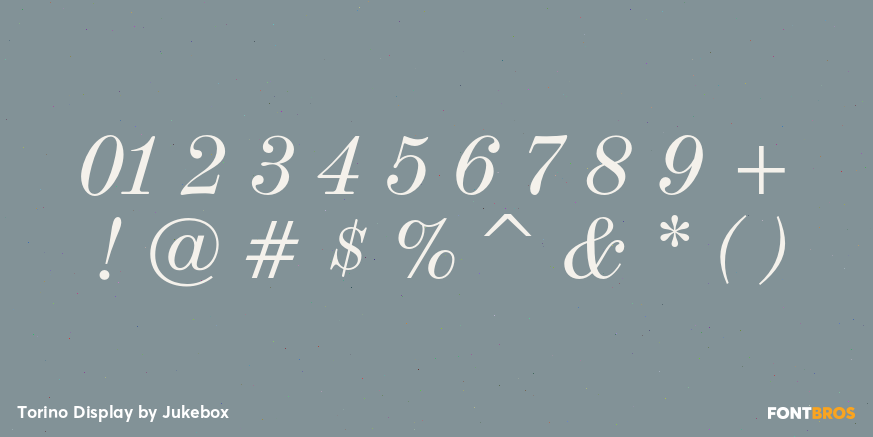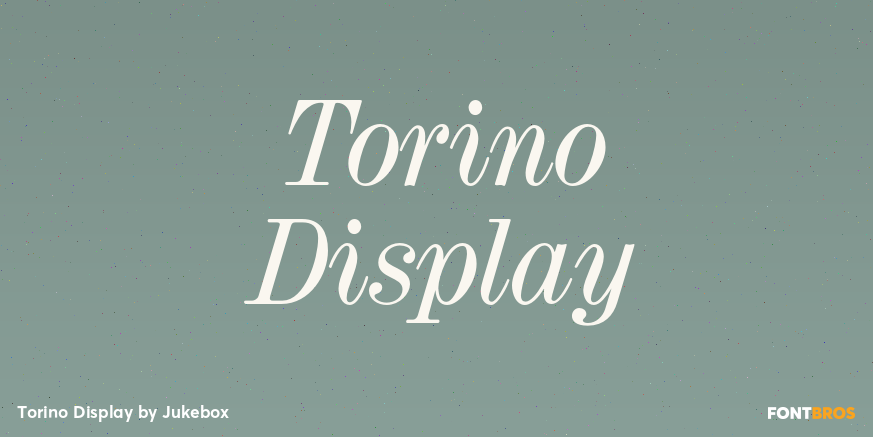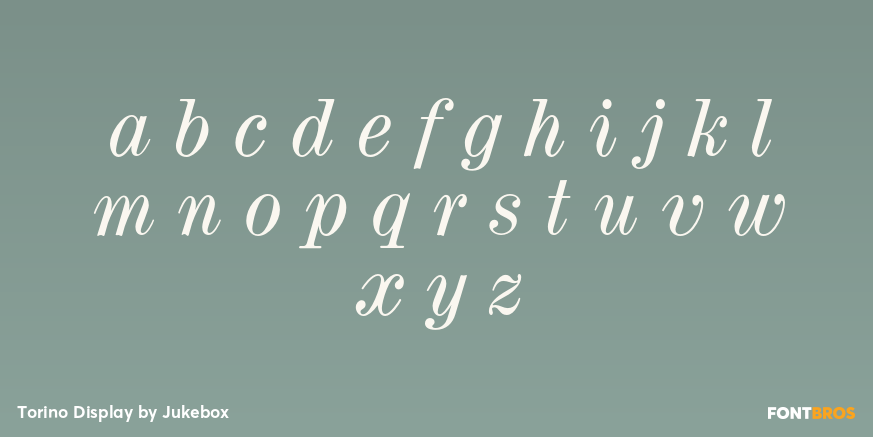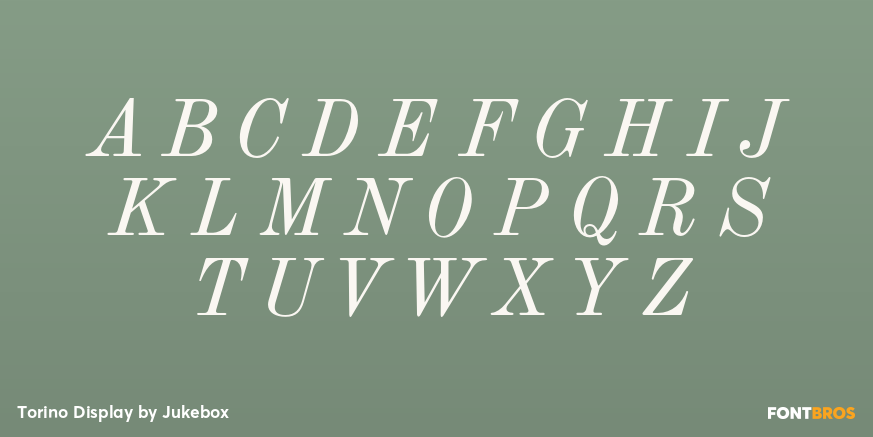
Torino Display
Font Family by Jukebox
Torino Display Italic is another one of my personal favorites! Digitally revived from an older photo-typositing face, this typeface has a ton of alternate and swash variants to give it a wide range of typographic possibilities. Some of the most interesting are the capital-sized versions of the lowercase a, e, n and r, each with their own swash alternates as well. This is a terrific font for display use and combines the best of both script and serif design elements.